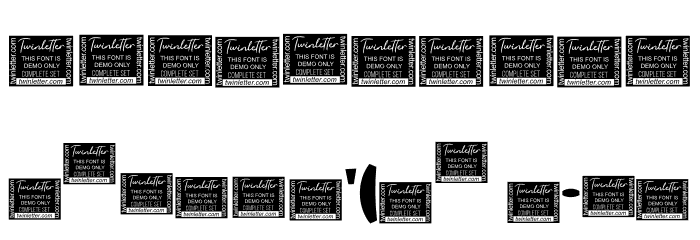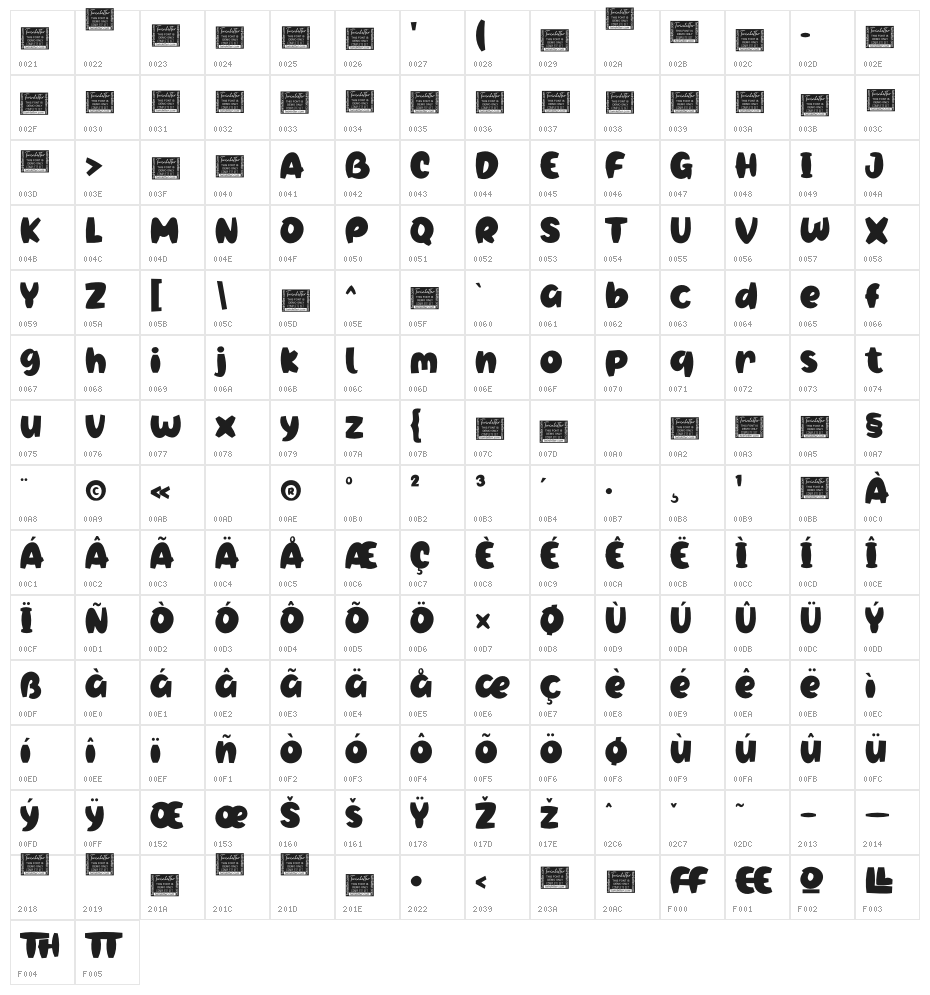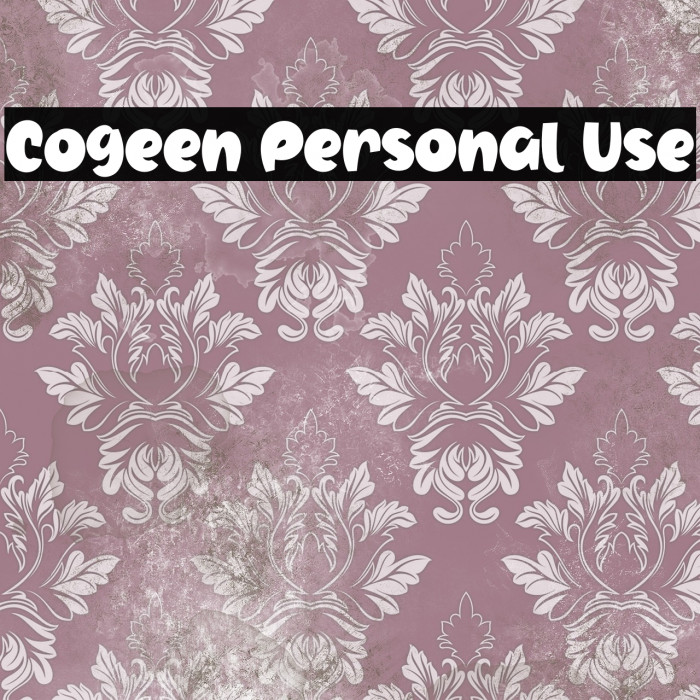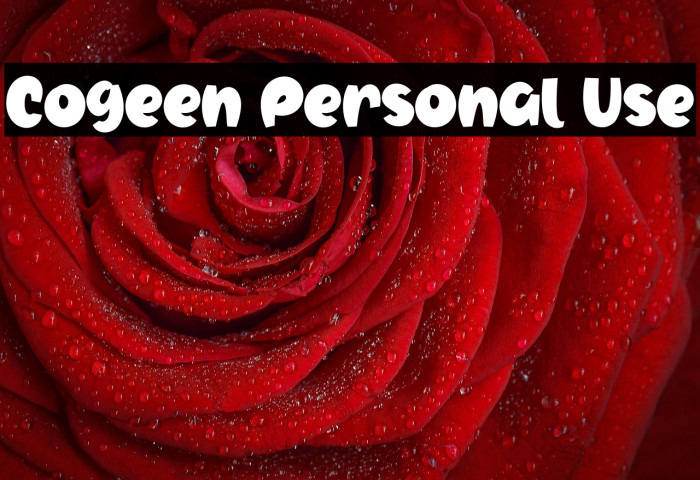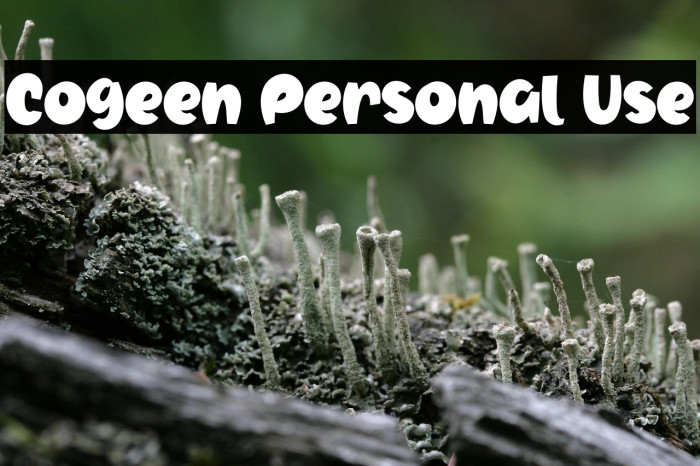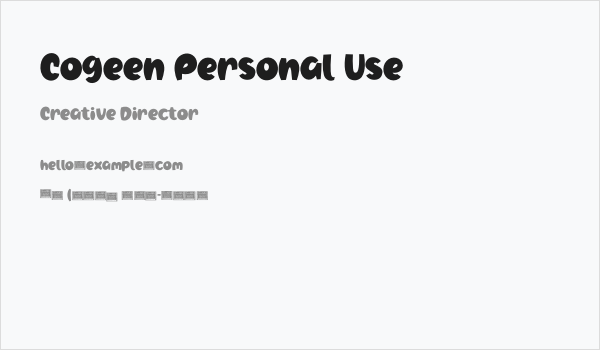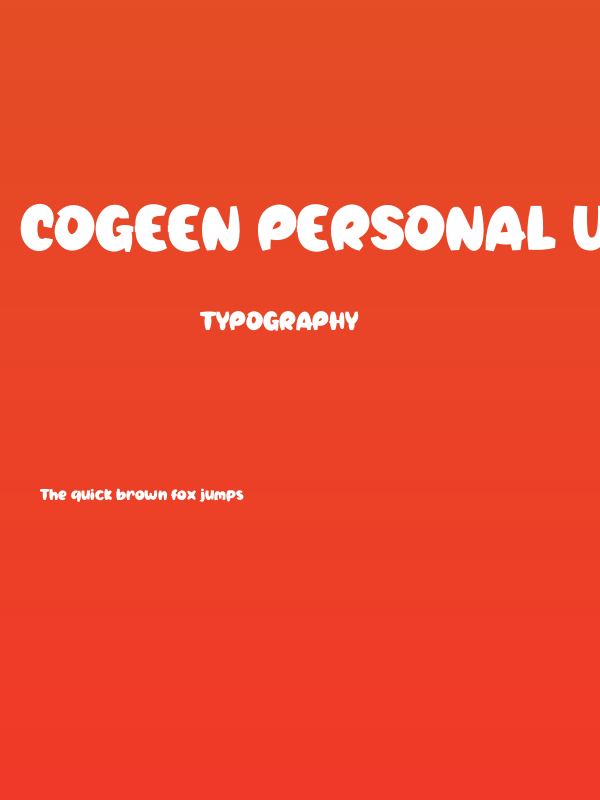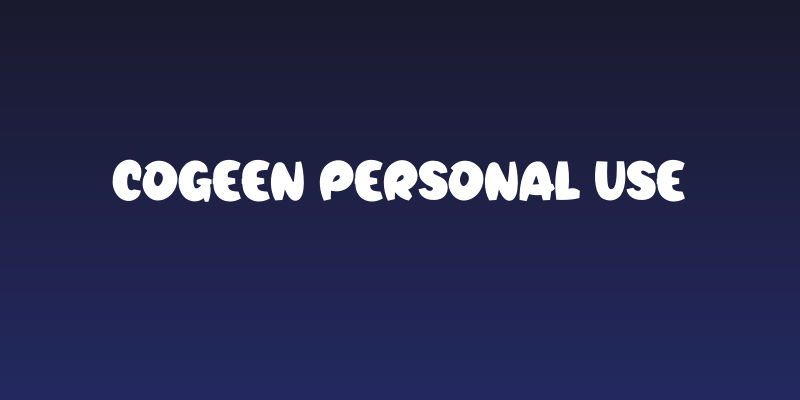
Cogeen Personal Use Font
Cogeen Personal Use Description
This font features a bold and playful style with thick, rounded strokes that give it a friendly and approachable appearance. The characters are slightly irregular, adding a whimsical touch to the overall design. The uppercase and lowercase letters maintain a consistent width, contributing to a cohesive look. The numbers and special characters follow the same playful aesthetic, making the font suitable for creative and informal projects. Its unique style makes it stand out, while the boldness ensures readability even at smaller sizes.
| Proposed Projects | Ideal for children's books, playful branding, posters, and creative social media graphics. |